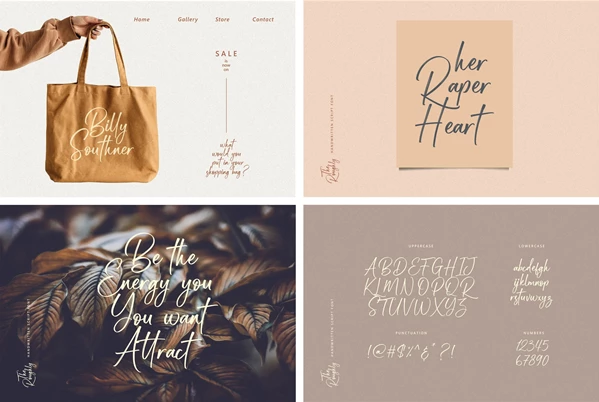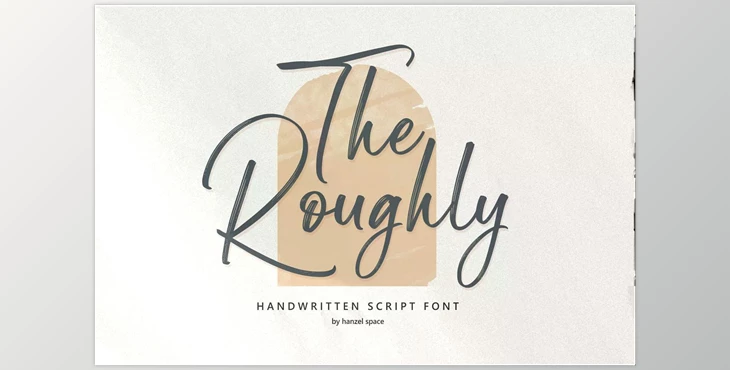
The Roughly Script Font CreativeMarket 6637807:
This font reminds me of the reason I fell in love with handwriting - bold and messy handwritten quotes that transform inspirational words into stunning visual works. Alongside prints and quotes, The Roughly would be perfect for headings and logos.